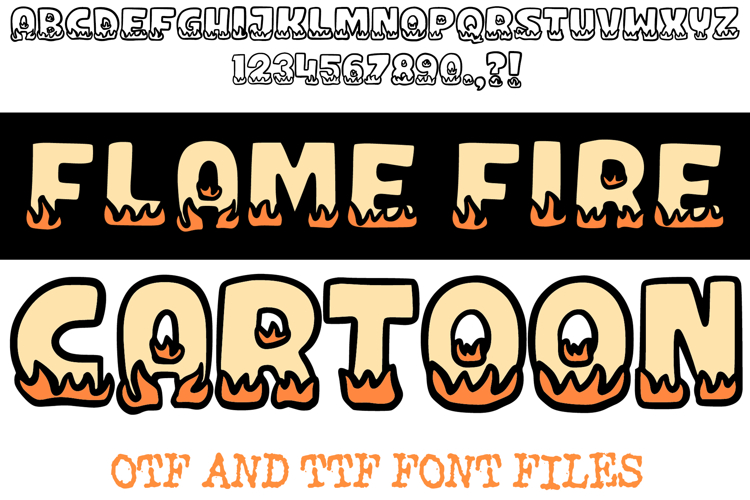
Flame Fire Cartoon Lettering ABC Font Typeface Alphabet OTF
Ignite your designs with the vibrant energy of Flame Fire Cartoon Font! This dynamic and eye-catching typeface perfectly captures the playful, yet powerful, essence of animated flames and melting heat. It's more than just a font; it's a burst of fiery personality, designed to bring a touch of scorching fun and whimsical intensity to any creative project.
Each character in Flame Fire Cartoon Font features a bold, rounded outline, with its base dynamically dripping and melting as if touched by intense heat. This unique, fluid effect creates an engaging visual that suggests everything from playful campfires to lava-hot goo, making it an ideal choice for children's games, comic book titles, fiery branding, hot sauce labels, barbecue event posters, or any design calling for a unique blend of cartoon charm and heated enthusiasm.
Whether you're creating lively event promotions, designing adventurous product packaging, crafting exciting social media posts, or adding a sizzling touch to digital art, this font will bring an undeniable sense of fun, originality, and a vibrant, energetic aesthetic to your work. Its clear yet playfully melting forms ensure readability while delivering a memorable visual experience.
If you're looking to infuse your designs with a sense of playful heat, charming intensity, and an undeniable fiery spirit, Flame Fire Cartoon Font is your ultimate tool. Get ready to spark some creativity!